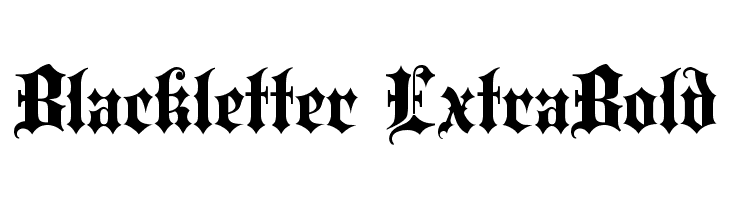
Download free fonts > medieval > blackletter extrabold font. Blackletter fonts have letters that are very bold and ornate. You can find over 307 other extra bold fonts on fontsup. Blackletter extrabold font characters are listed below. Fonts available at this web site are either gnu/gpl, freeware, free for personal use, donationware, shareware or demo. 10 matching requests on the forum. Download the blackletter extrabold free font. Blackletter extrabold added 2015 02 06 downloaded 17 view 1004. We are checking periodically that all the fonts which can be downloaded from fontpalace.com are either shareware, freeware or come under an open source. Download the best free blackletter fonts, that are hand picked collections by our editorial experts and can be used on mac, pc, website.